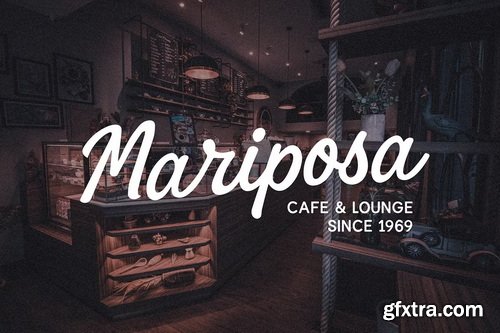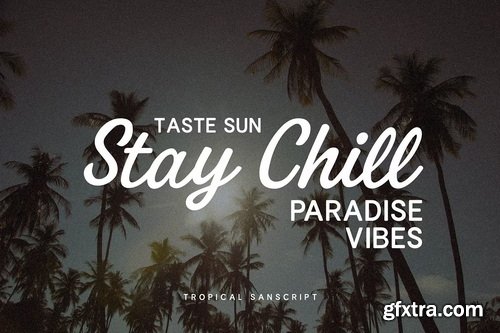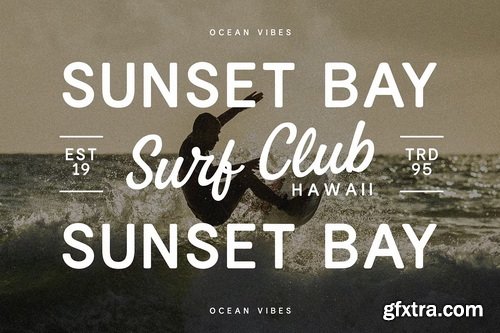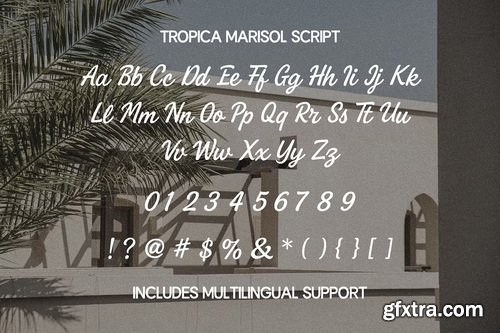
CreativeMarket - Tropica Marisol Duo Typeface
- Tropica Marisol is a versatile font duo that combines a warm retro script with a clean modern sans. Inspired by tropical aesthetics, vintage signage, and timeless classics, this typeface is perfect for branding, packaging, editorial design, and authentic signage projects.